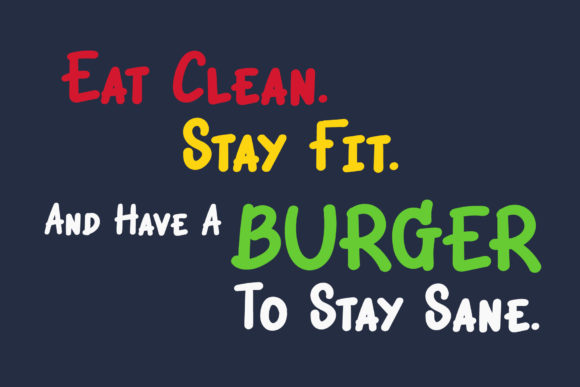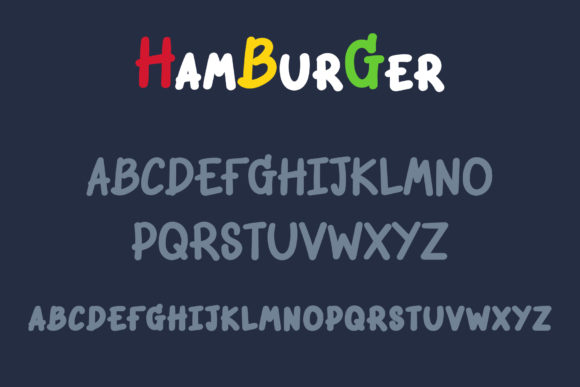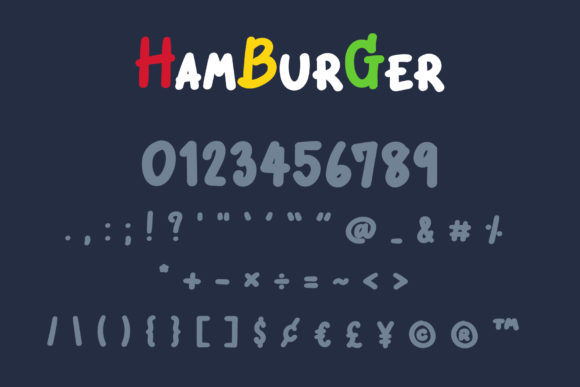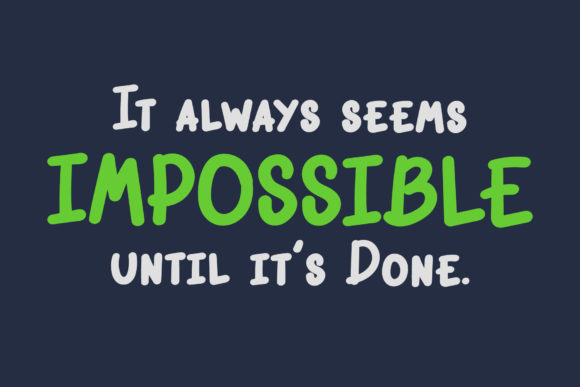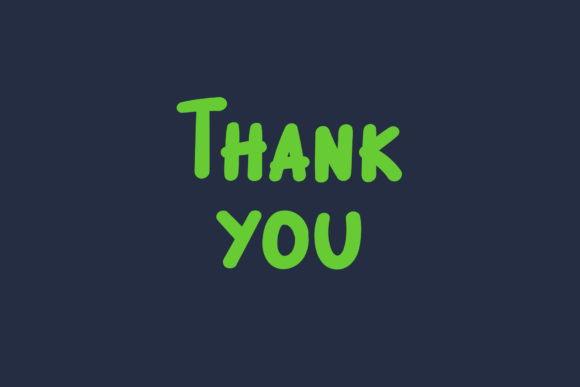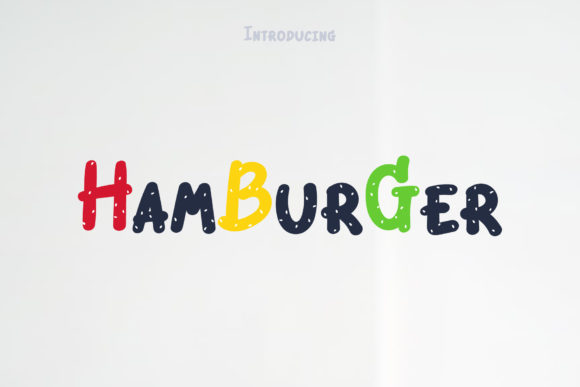
Hamburger Font: The Fun and Simple Handwritten Font for Creative Projects
Are you looking for a font that can add a touch of playfulness and simplicity to your designs? Look no further than the Hamburger font! This fun and simple handwritten font is perfect for a variety of creative projects, from logos and social media posts to advertising and more.
What is Hamburger Font?
Hamburger font is a type of handwritten font that is designed to mimic the casual, laid-back feel of handwritten text. It’s a simple font that is easy to read and understand, making it perfect for use in a variety of contexts. The font is characterized by its rounded edges and smooth lines, which give it a friendly and approachable feel.
Features of Hamburger Font
So, what makes Hamburger font so special? Here are just a few of its key features:
- Fun and playful: Hamburger font is designed to be fun and playful, making it perfect for use in creative projects that require a lighthearted touch.
- Simple and easy to read: Despite its playful feel, Hamburger font is simple and easy to read, making it perfect for use in a variety of contexts.
- Handwritten feel: Hamburger font has a handwritten feel that gives it a personal and approachable touch.
- Versatile: Hamburger font can be used in a variety of creative projects, from logos and social media posts to advertising and more.
Uses for Hamburger Font
So, what can you use Hamburger font for? The possibilities are endless! Here are just a few ideas to get you started:
- Logos: Hamburger font is perfect for use in logos, particularly for brands that want to convey a fun and playful image.
- Social media posts: Hamburger font is great for use in social media posts, where its playful feel can help to engage and entertain your audience.
- Advertising: Hamburger font can be used in advertising to add a touch of whimsy and fun to your marketing materials.
- Crafting and DIY projects: Hamburger font is also great for use in crafting and DIY projects, such as scrapbooking, card making, and more.
Why Choose Hamburger Font?
So, why should you choose Hamburger font for your creative projects? Here are just a few reasons:
- Unique and eye-catching: Hamburger font is a unique and eye-catching font that can help your designs to stand out.
- Easy to use: Hamburger font is easy to use and can be easily integrated into a variety of design projects.
- Flexible: Hamburger font is a flexible font that can be used in a variety of contexts, from formal to informal.
- Fun and playful: Hamburger font is a fun and playful font that can add a touch of whimsy and fun to your designs.
Tips for Using Hamburger Font
Here are a few tips for using Hamburger font in your creative projects:
- Use it sparingly: Hamburger font is a bold font that can be overwhelming if used too much. Use it sparingly to add emphasis and interest to your designs.
- Pair it with other fonts: Hamburger font can be paired with other fonts to create a unique and interesting look.
- Experiment with colors: Hamburger font can be used with a variety of colors to create a unique and eye-catching look.
In conclusion, Hamburger font is a fun and simple handwritten font that is perfect for a variety of creative projects. Its playful feel and easy-to-read design make it a great choice for logos, social media posts, advertising, and more. With its unique and eye-catching design, Hamburger font is sure to add a touch of whimsy and fun to your designs.